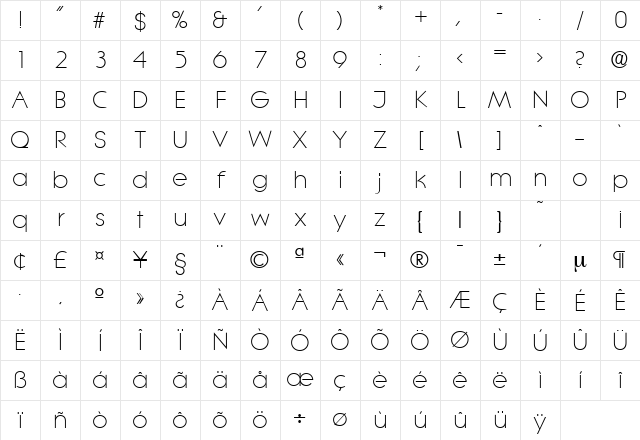
Litera-Serial-Light Regular
Design Context for Litera-Serial-Light
Litera-Serial-Light is a composed and adaptable typeface that performs quietly and consistently across a wide range of design contexts. Its slender proportions lend an understated elegance to any composition.